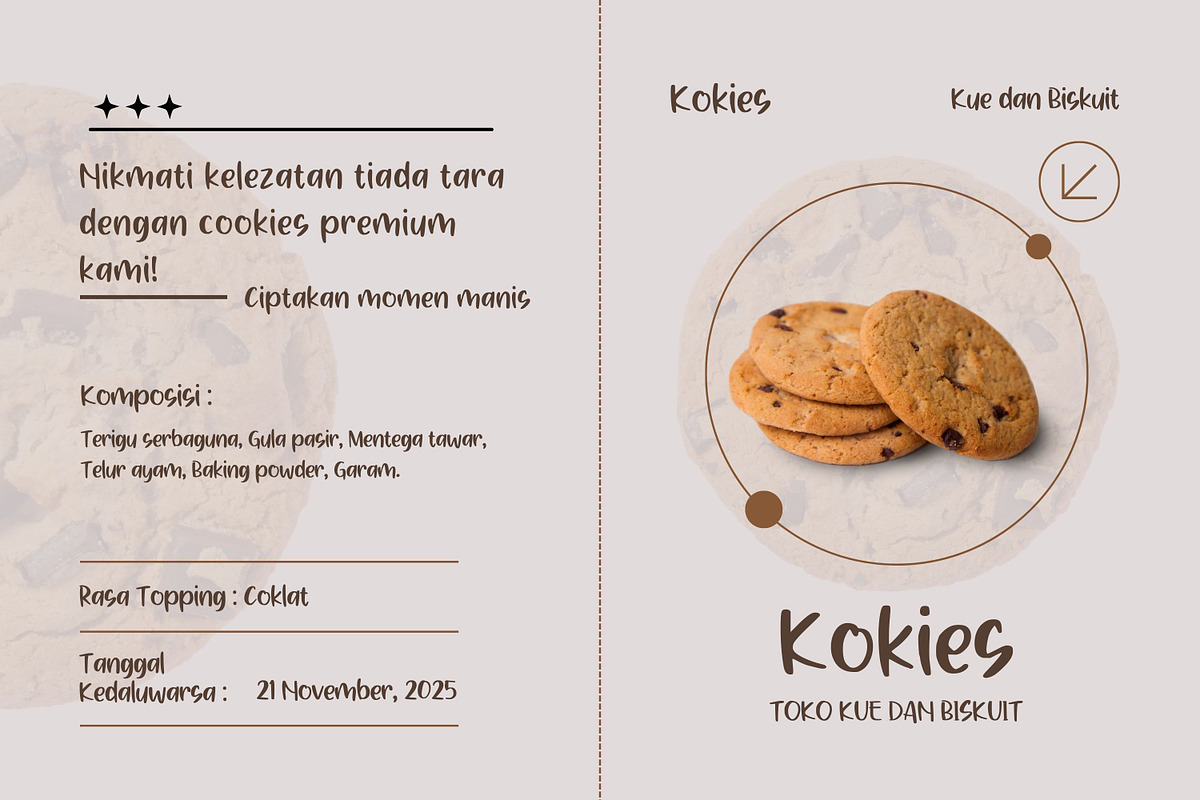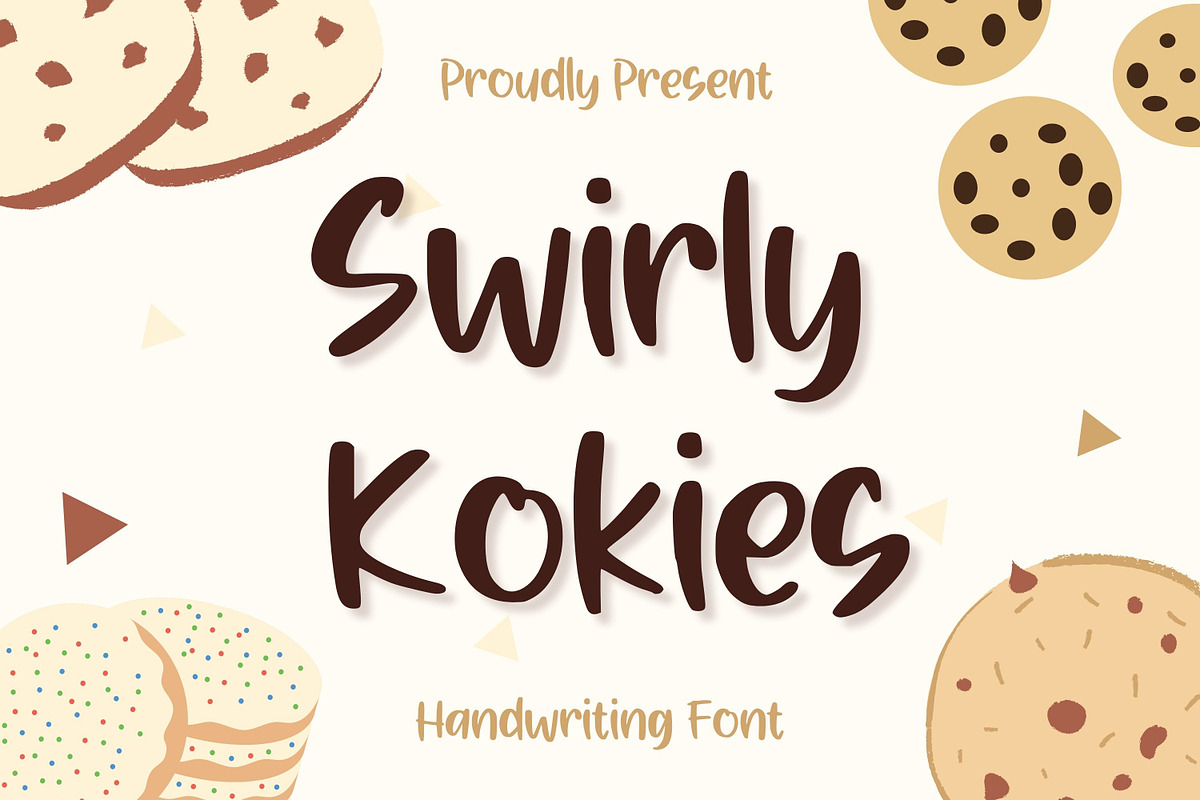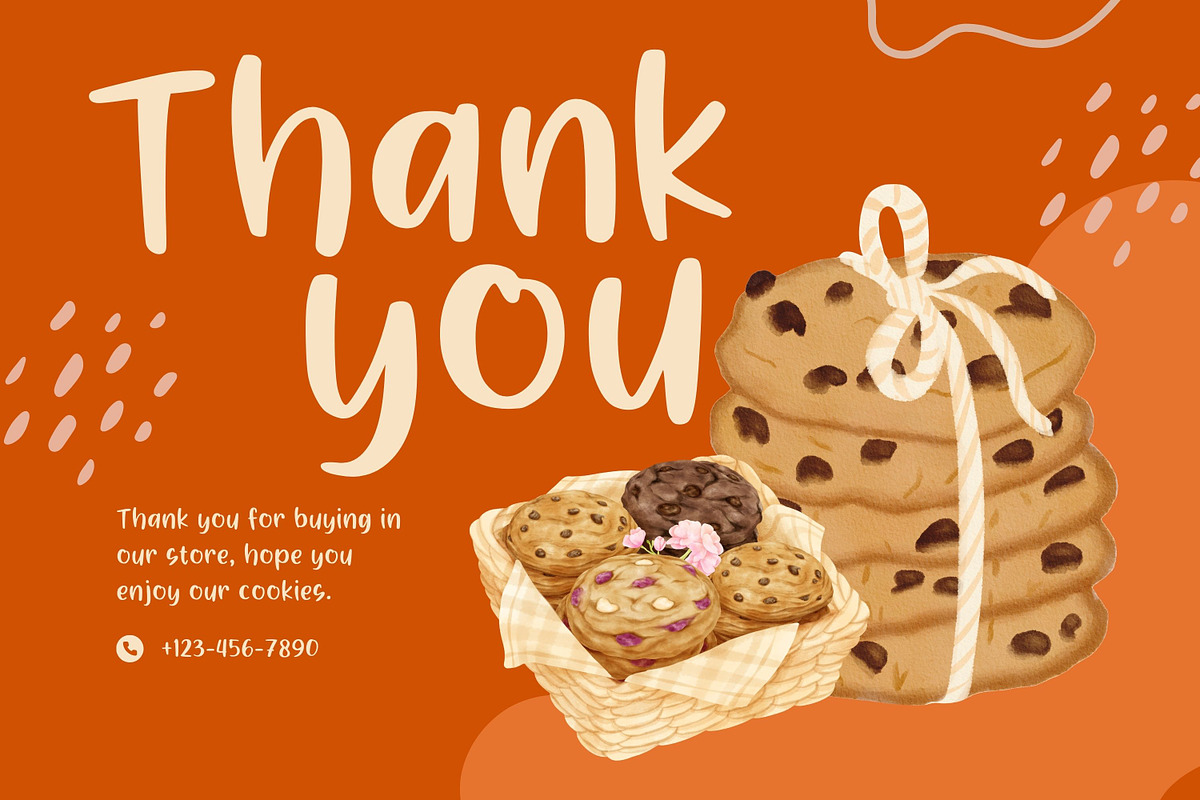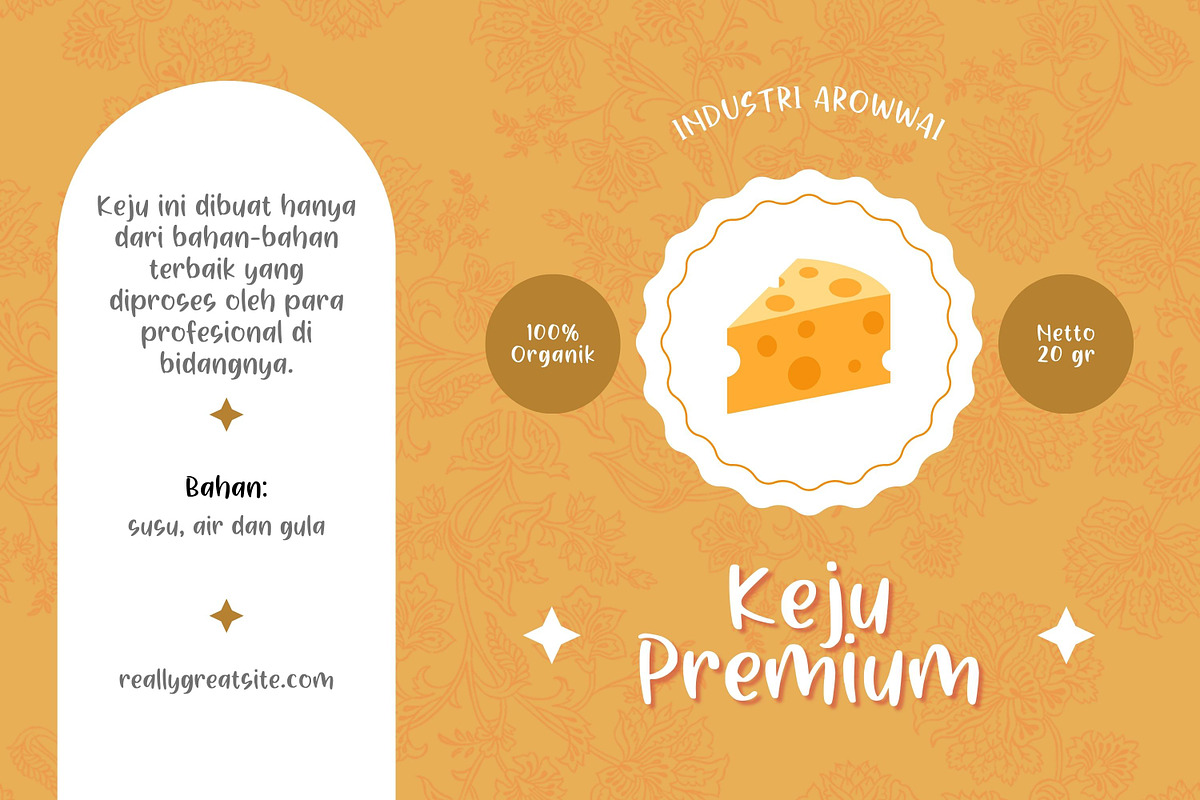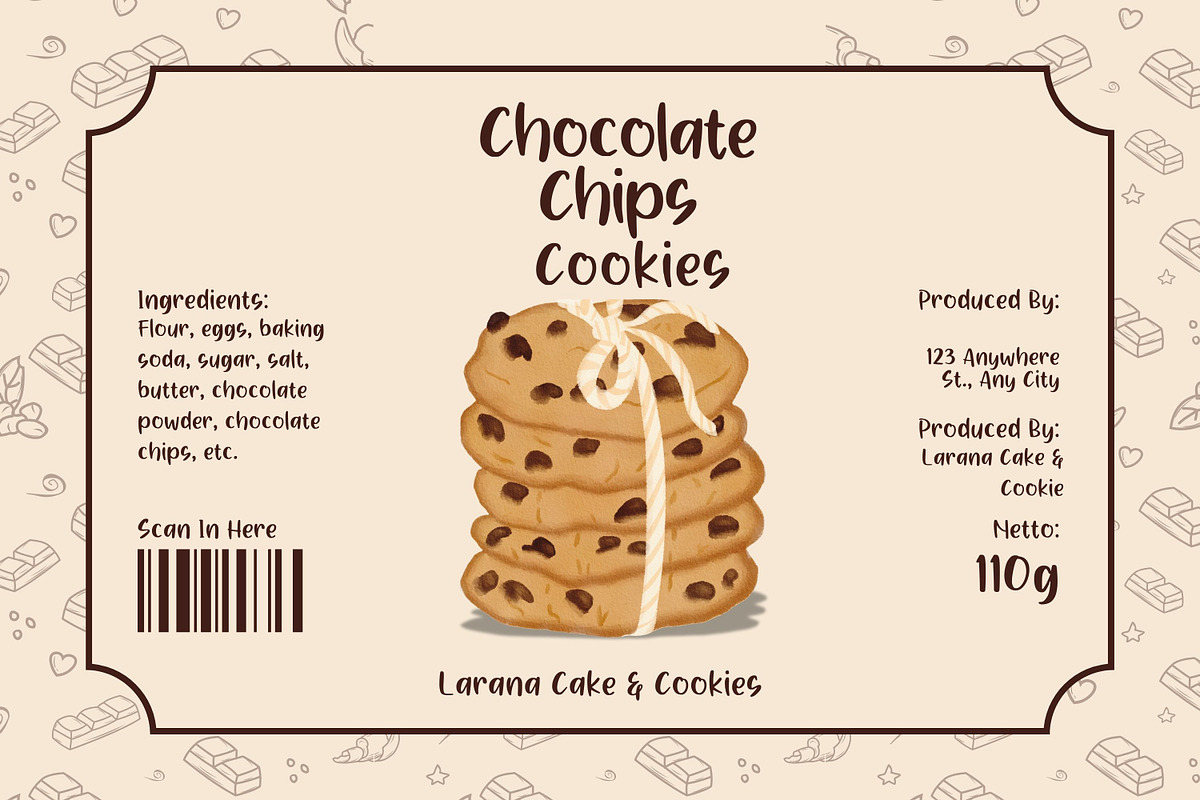
Swirly Kokies
Presenting Swirly Kokies; a charming and delightful font, perfect for adding a touch of whimsy to your business and branding endeavors. Tailor-made for creative ventures, this distinctive font simply radiates enchantment. Let Swirly Kokies breathe life into your design projects in the most aesthetically pleasing way.